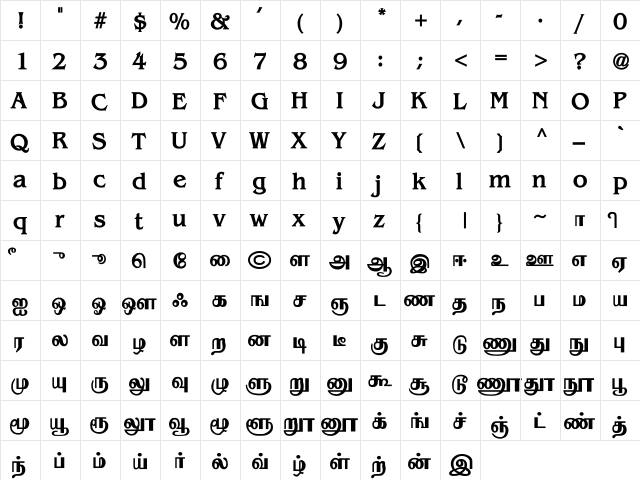
TSC Komathi Regular
| Foundry | Happy Users Tamil fonts |
| Designer | Happy Users |
Design Context for TSC Komathi Typeface
TSC Komathi is a composed and adaptable typeface that performs quietly and consistently across a wide range of design contexts.